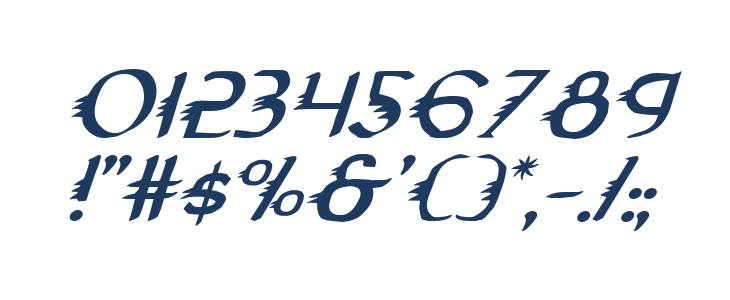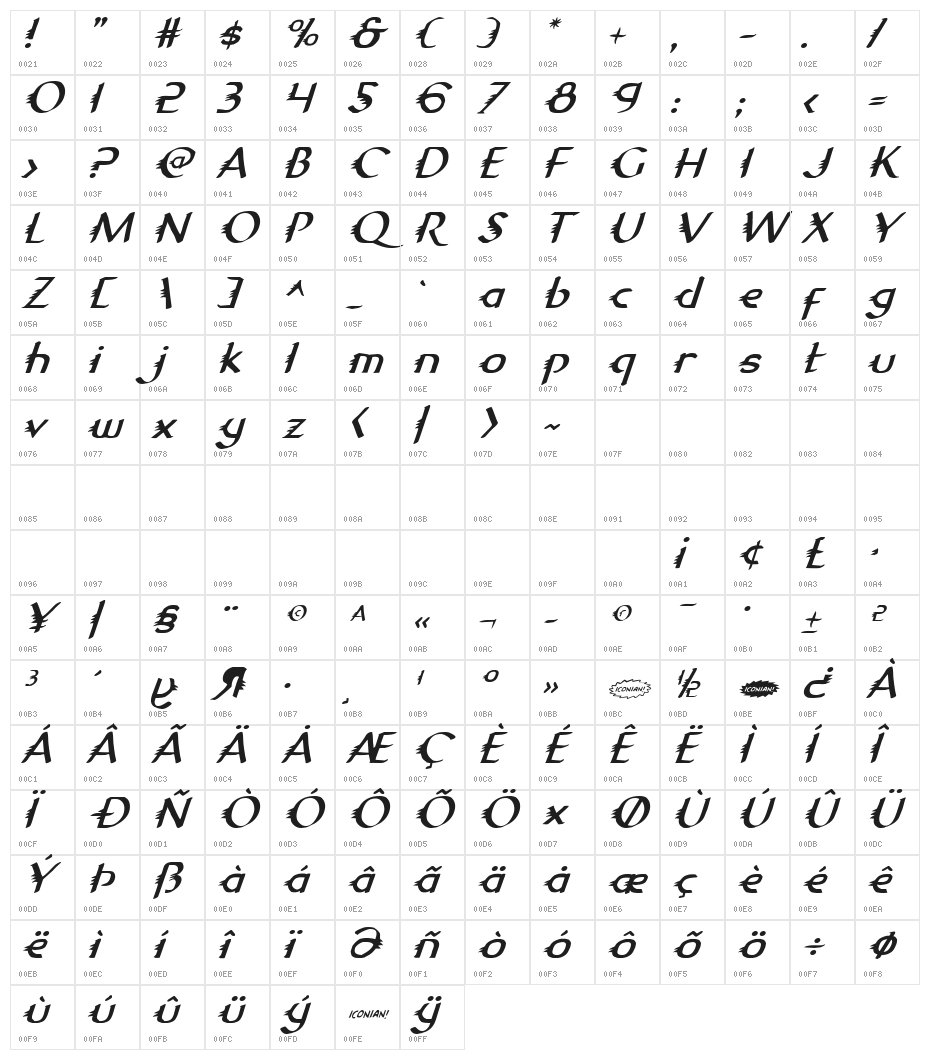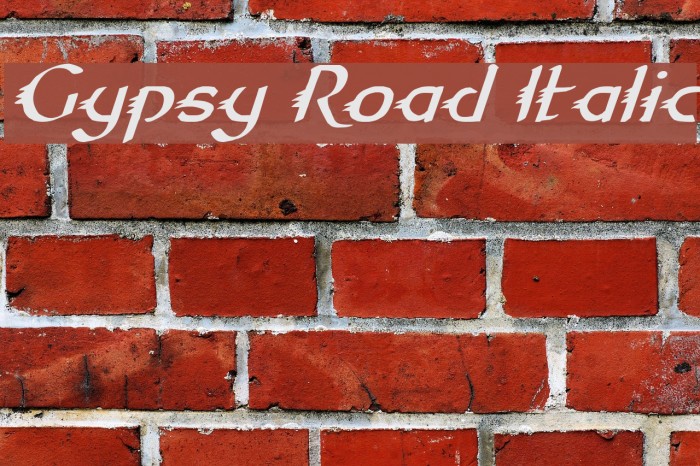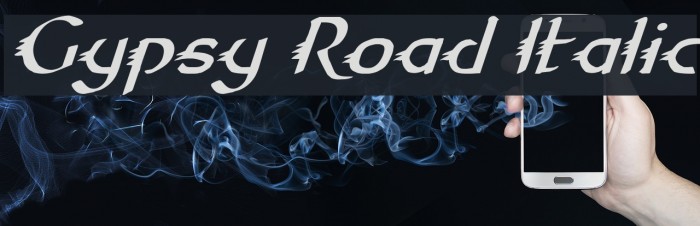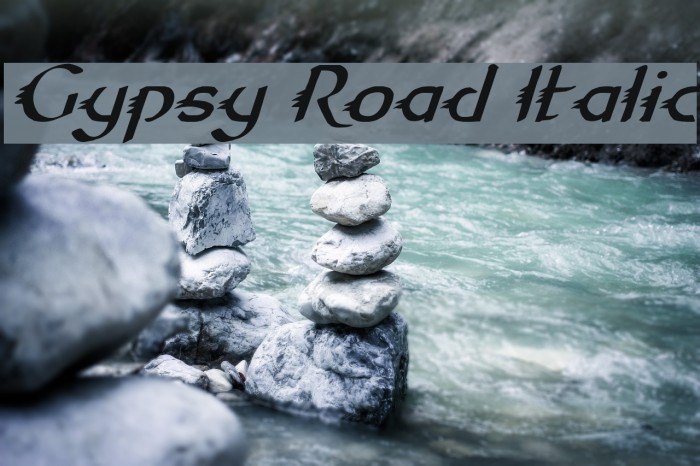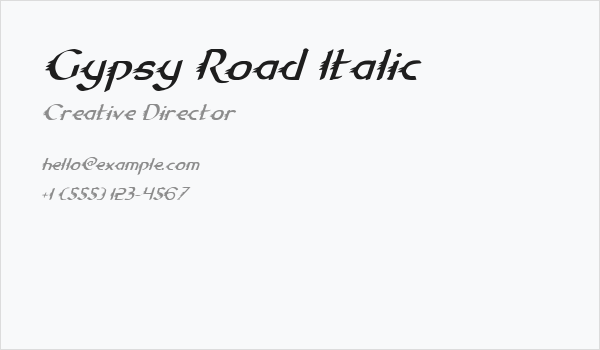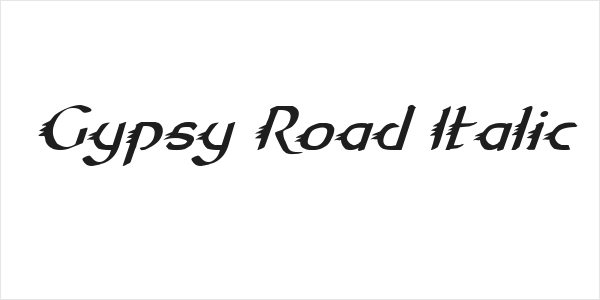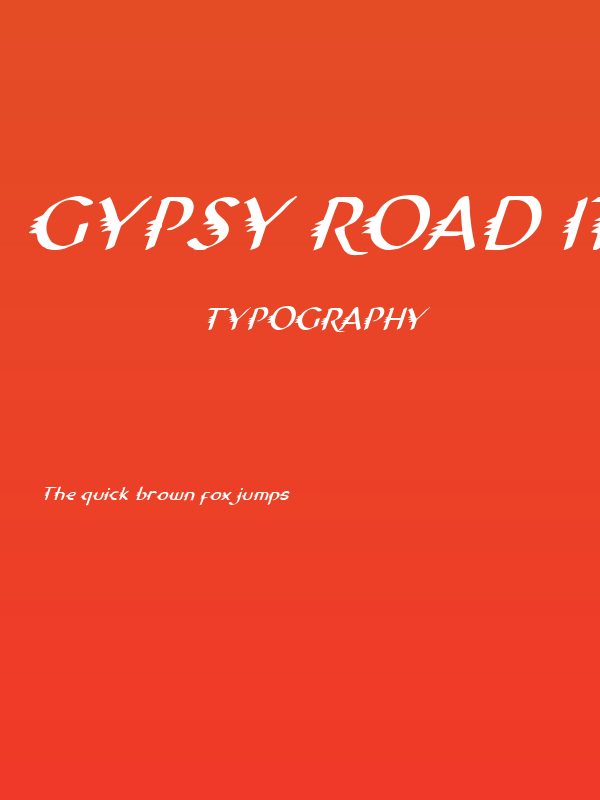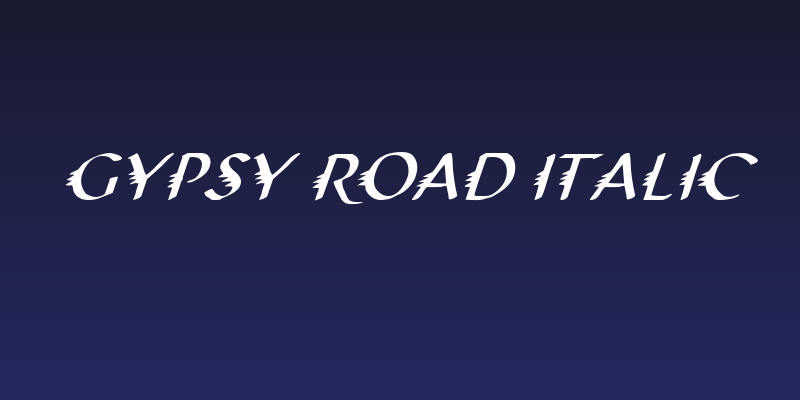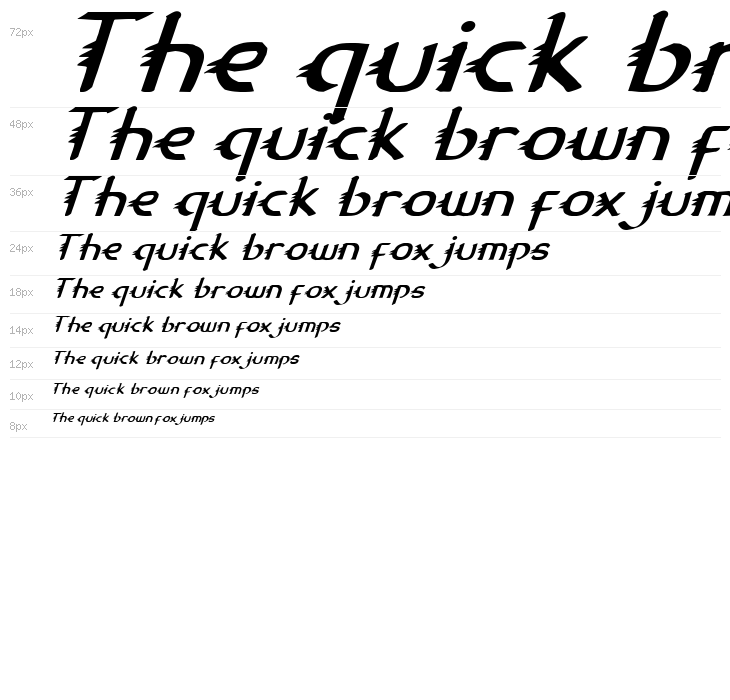
Gypsy Road Italic Font
Gypsy Road Italic Description
This font features a dynamic and edgy design, characterized by sharp, angular strokes and a distinct italic slant. The letters have a unique, jagged appearance that gives them a sense of motion and energy. The uppercase and lowercase letters maintain a consistent style, with the uppercase being slightly more pronounced. Numbers and special characters follow the same design principles, ensuring a cohesive look across all characters. The font's bold and italic nature makes it stand out, suitable for projects that require a strong visual impact.
| Proposed Projects | Ideal for music album covers, event posters, or branding that requires a bold and energetic style. |